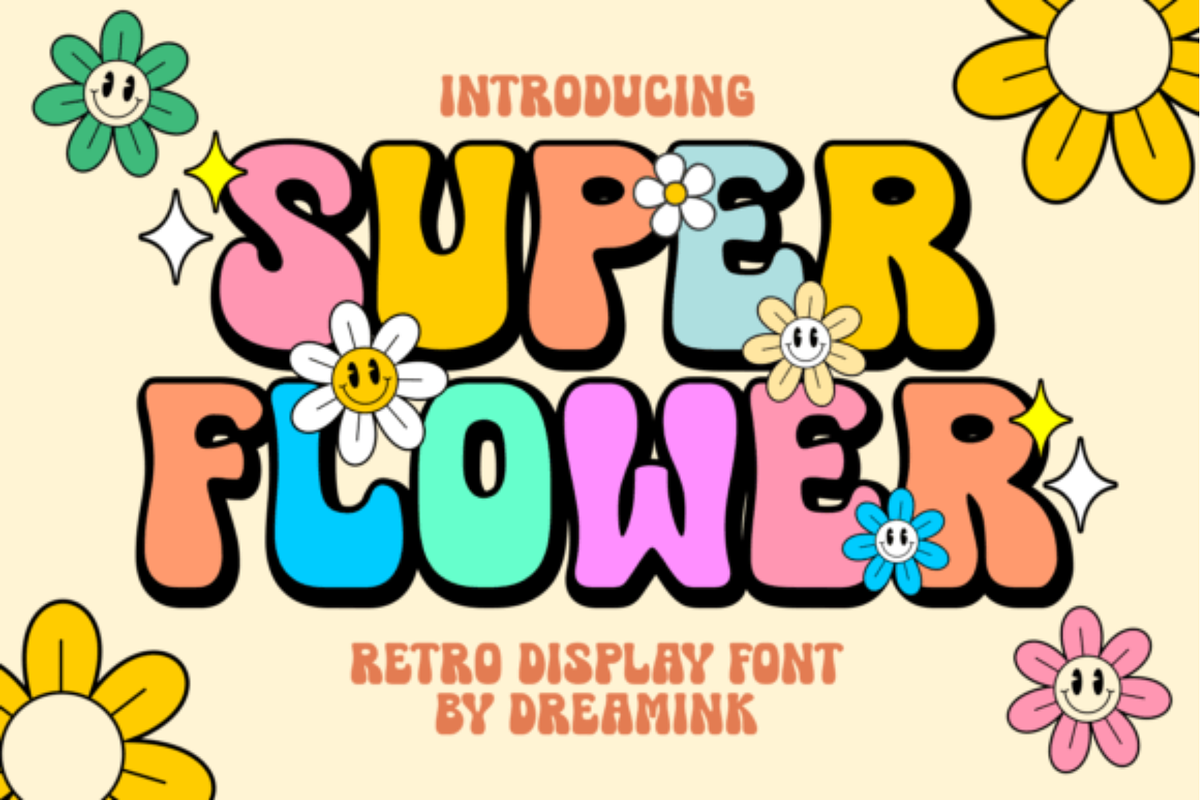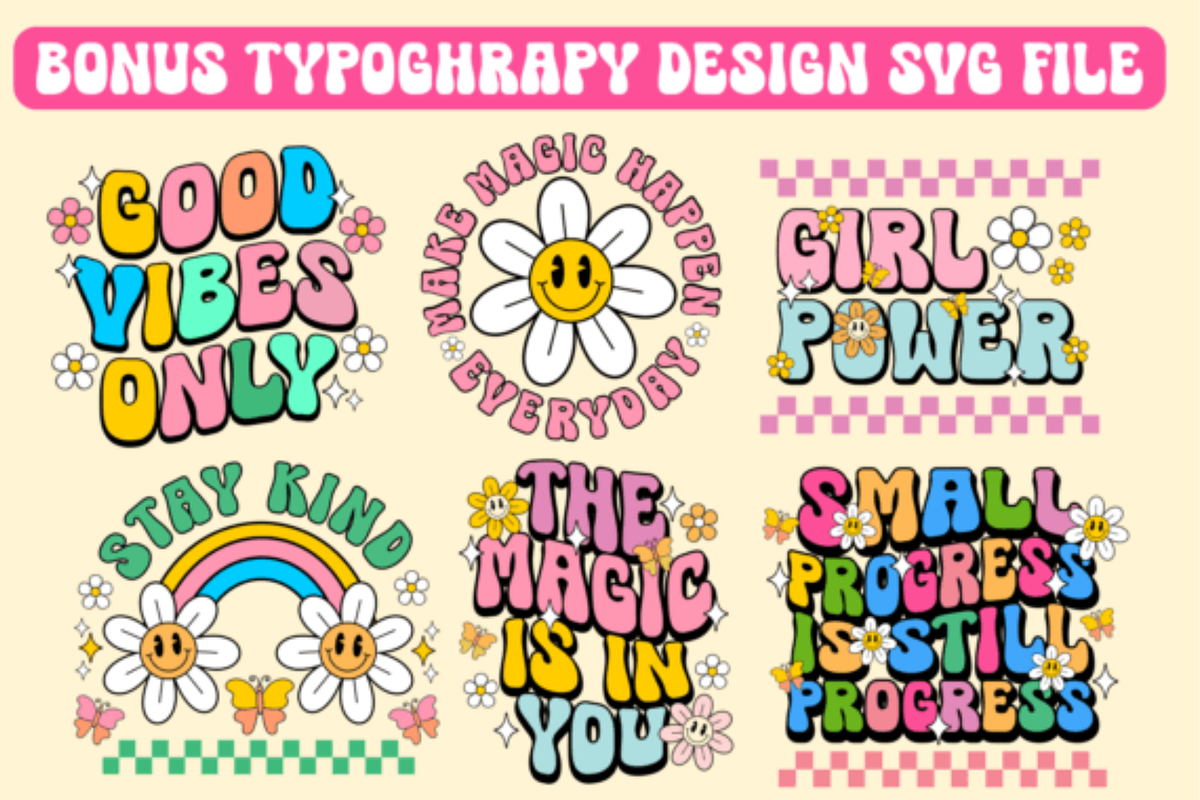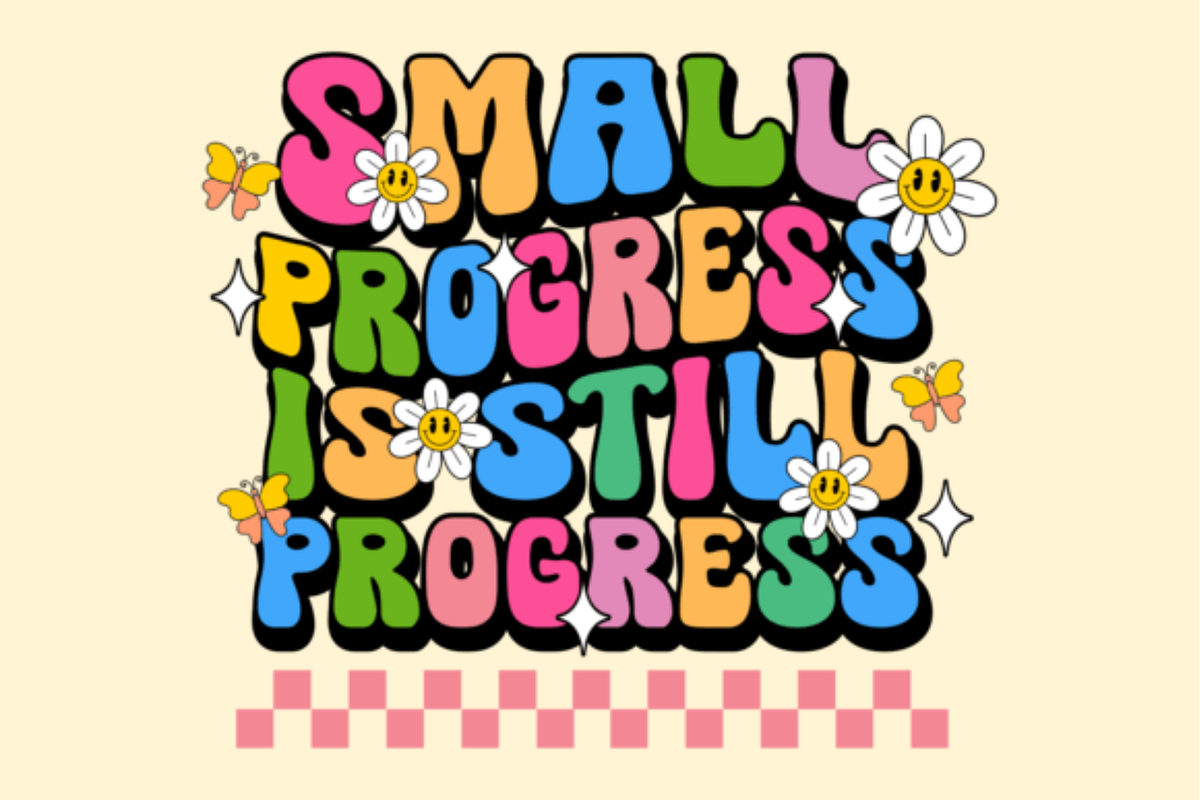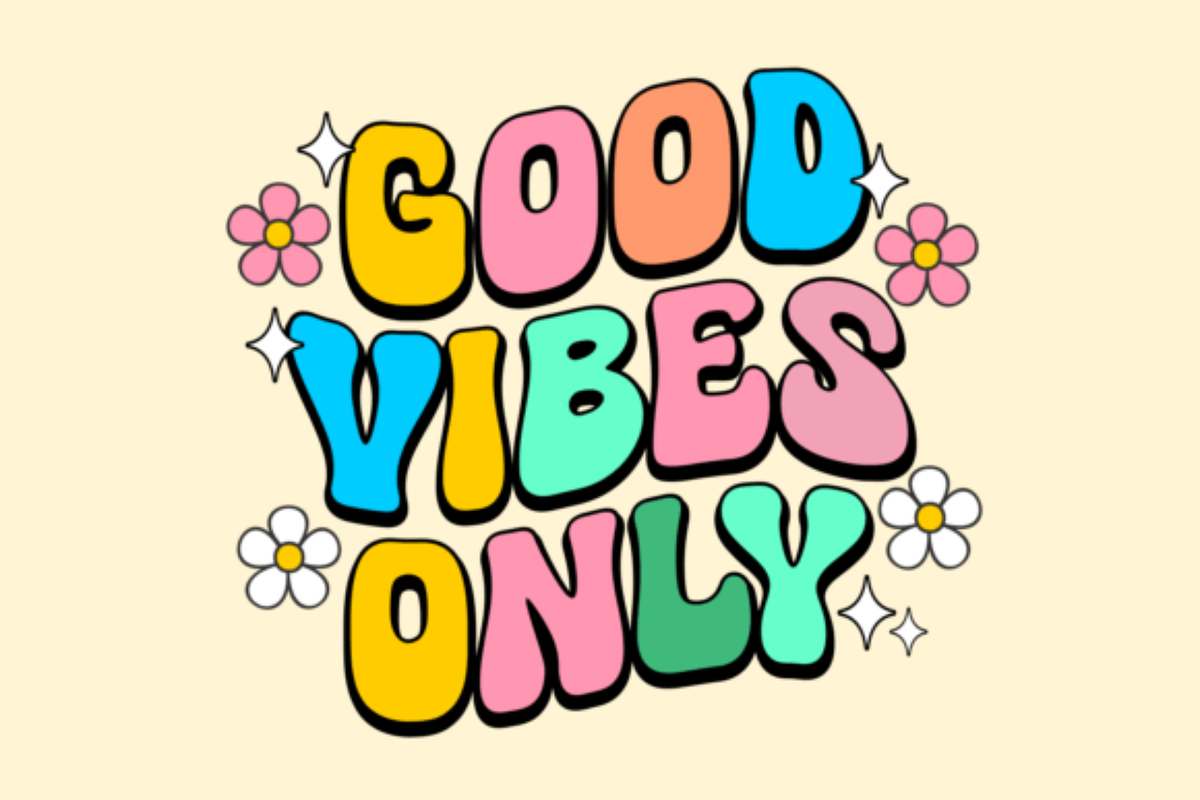
Super Flower Font
Super Flower is a charming retro display font that captures the essence of vintage design. Its playful curves and bold lines evoke a sense of nostalgia, reminiscent of the groovy styles from the past. With its unique character, Super Flower adds a touch of whimsy to any project, making it perfect for posters, logos, and creative headings that need a dash of retro flair.